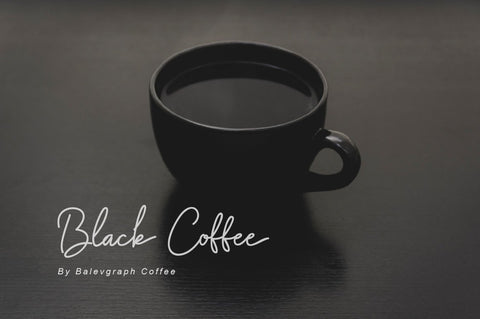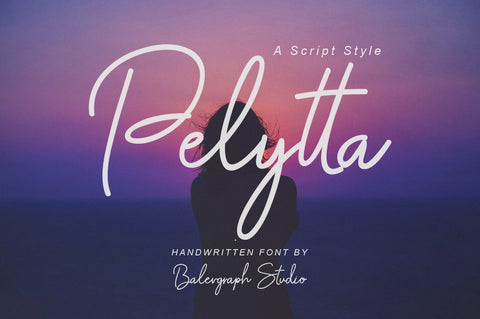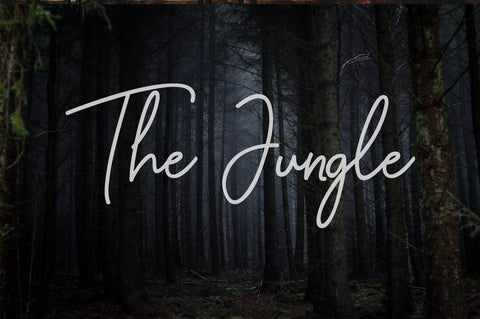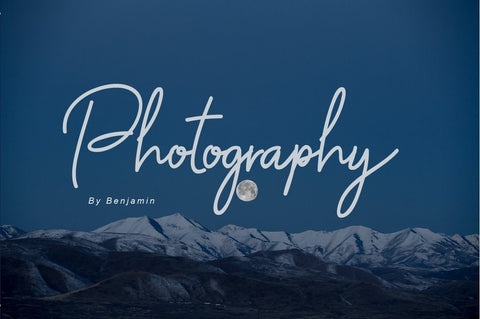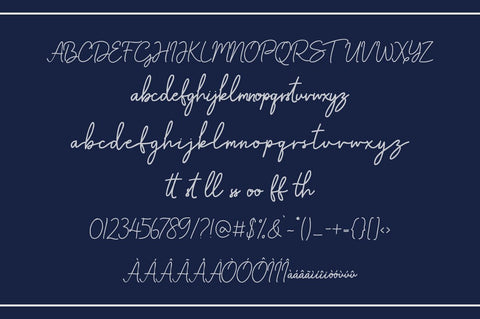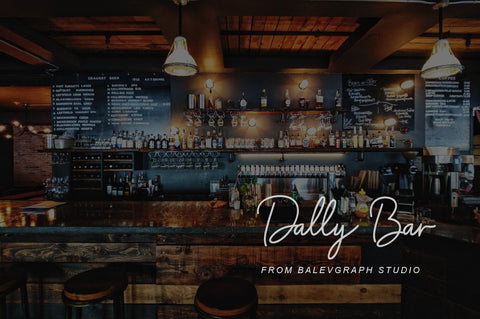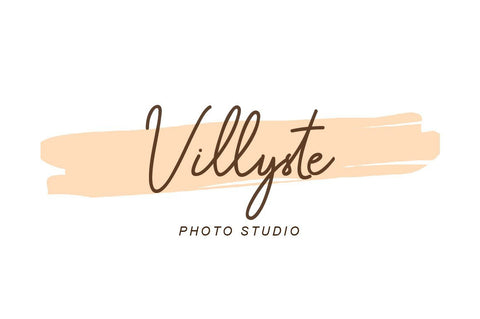
Pelytta - Handwritten Script Font
Pelytta has the meaning of light for her surroundings.
Pelytta would perfect for photography, watermark, social media posts, advertisements, logos & branding, invitation, product designs, label, stationery, wedding designs, product packaging, special events or anything that need handwriting taste.
- Tone of glyphs (include Uppercase, Lowercase, Numerals & Punctuations, Stylistic Set, Ligature, Multilingual)